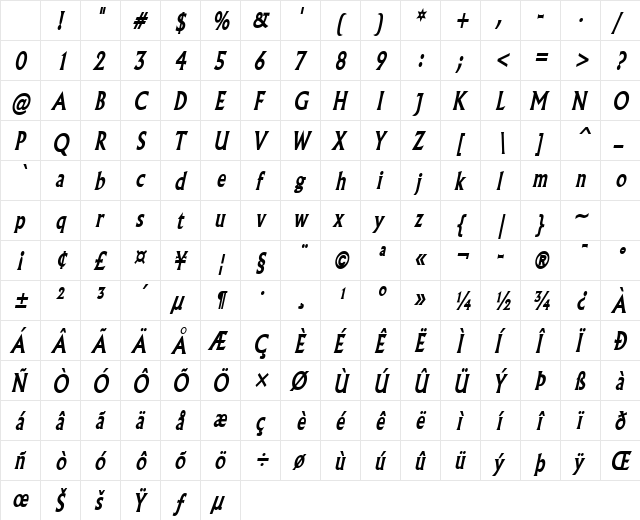
FlairThin is a composed and adaptable typeface that performs quietly and consistently across a wide range of design contexts. The slanted form adds forward momentum and visual energy. Its bold stroke weight gives it real presence on the page.
Pro Tip: Use FlairThin for emphasis, pull quotes, and subheadings where its slanted energy can add rhythm to the layout.